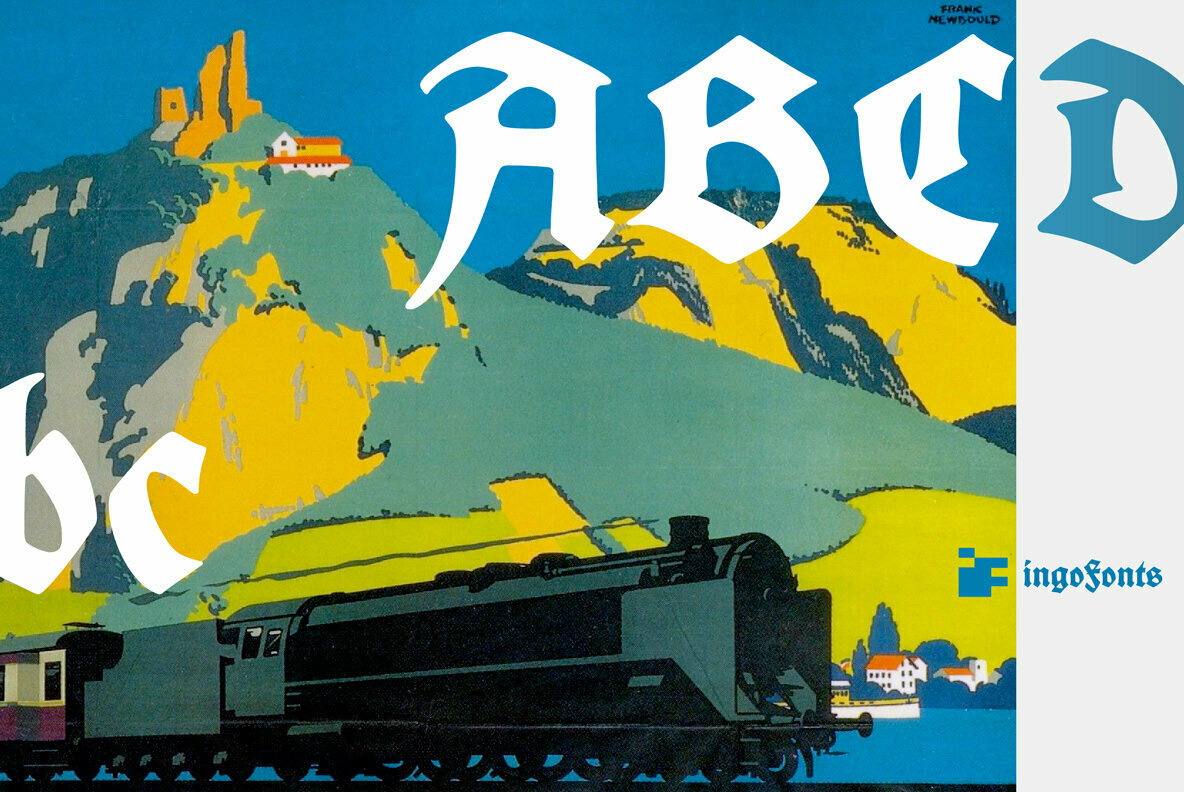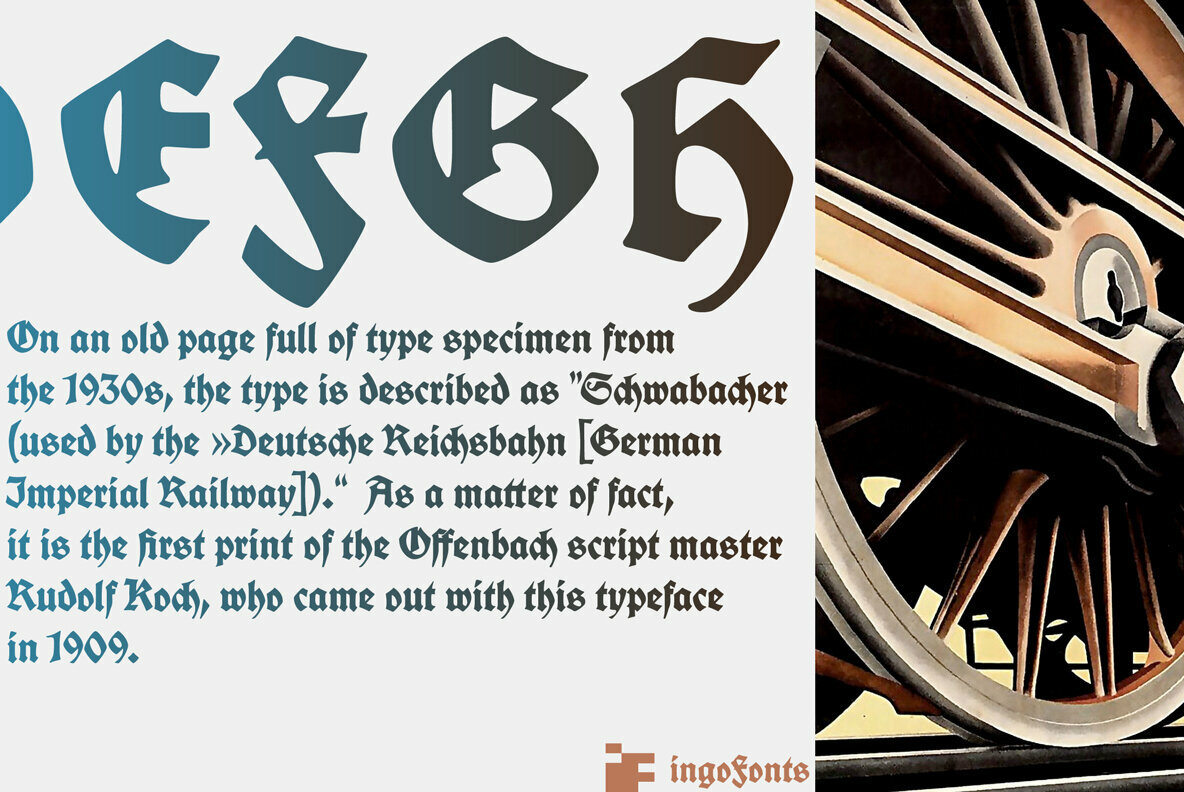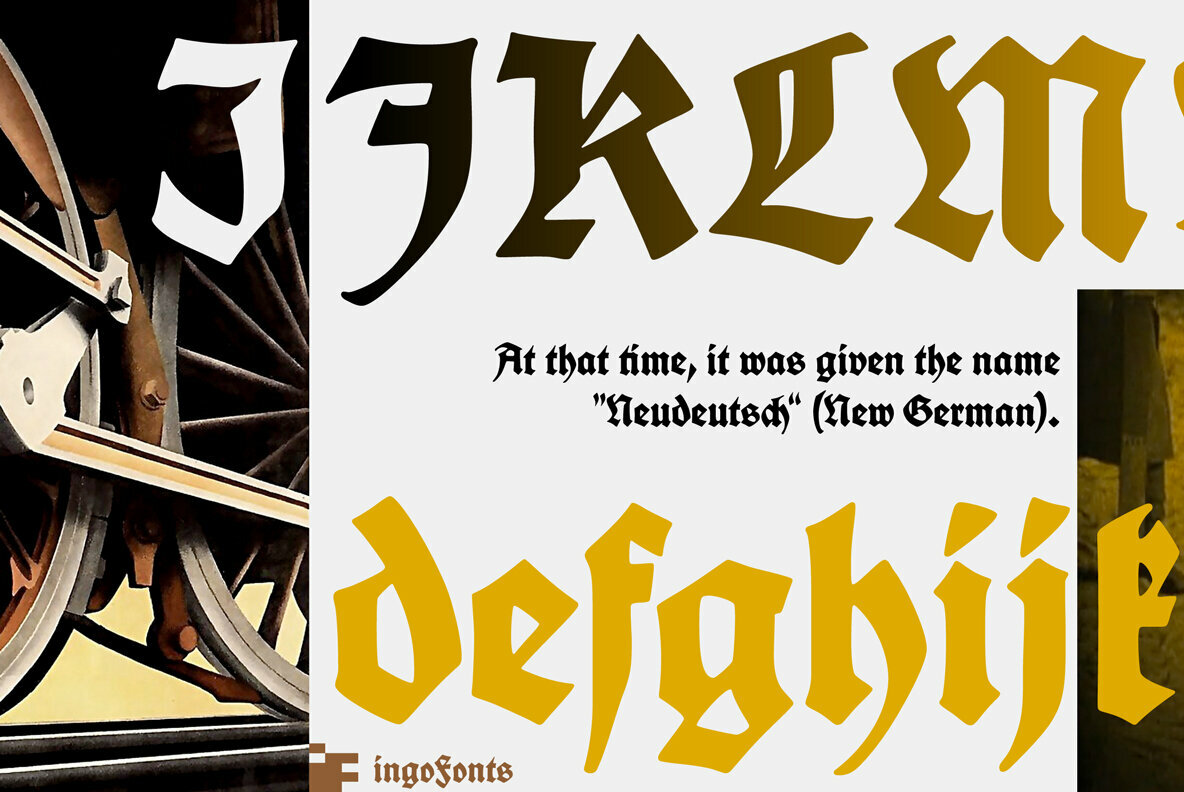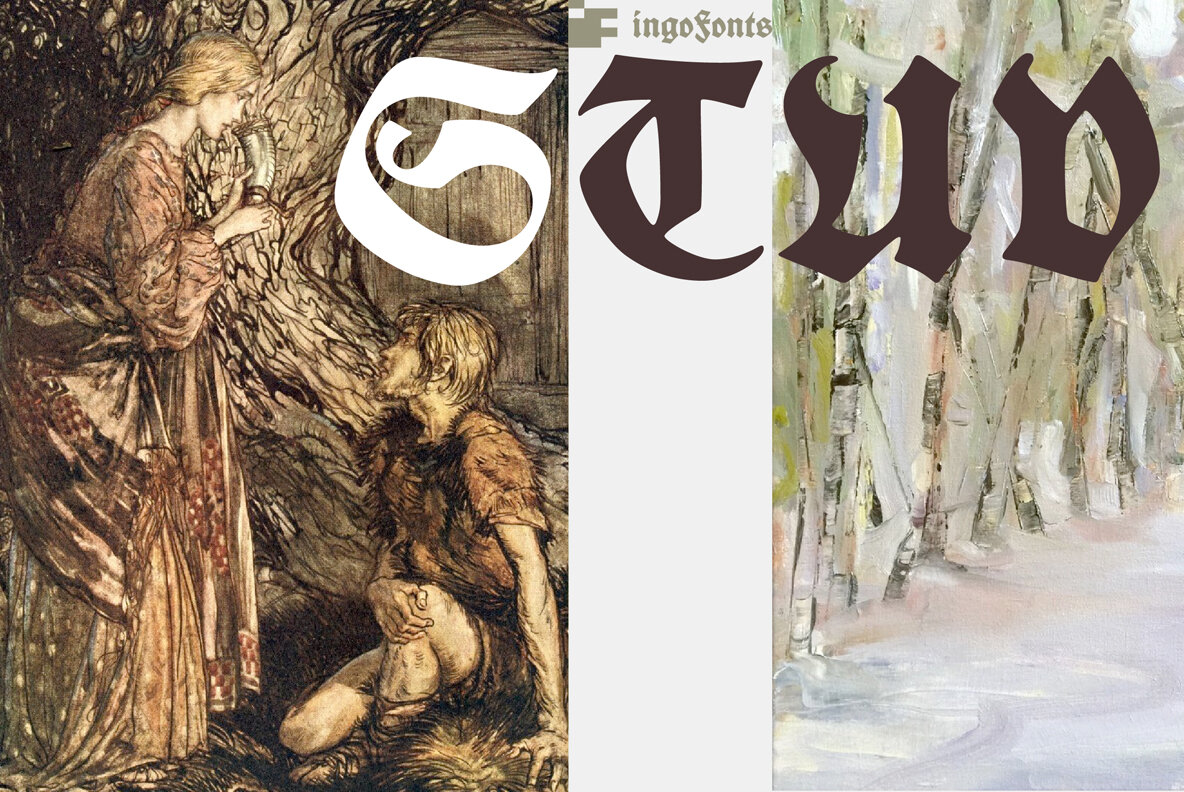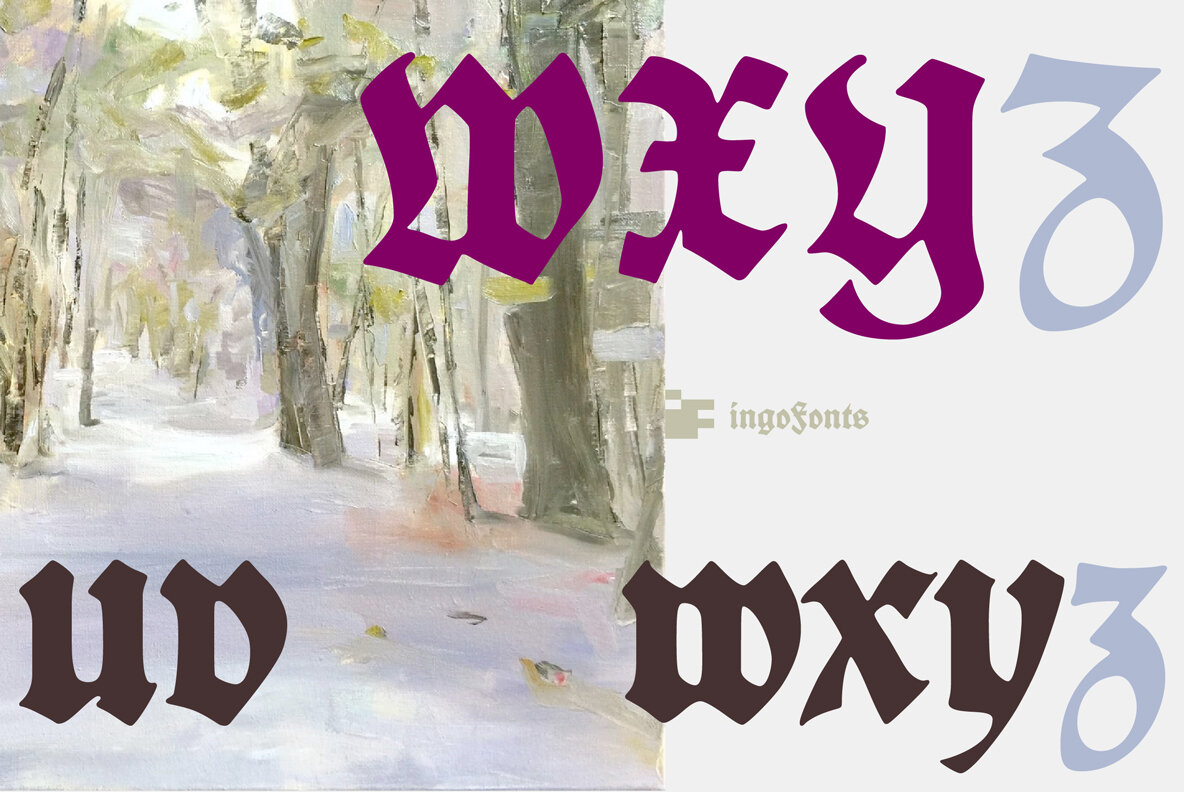
A heavy blackletter; Rudolf Koch’s first type from 1909.
On an old page full of type specimen from the 1930s, the type is described as ”Schwabacher (used by the Deutsche Reichsbahn [German Imperial Railway]).“ As a matter of fact, it is the first print of the Offenbach script master Rudolf Koch, who came out with this typeface in 1909.
At that time, it was given the name ”Neudeutsch“ (New German). Later, it became very popular under the name Koch-Schrift, and was at times the official typeface of the Deutsche Reichsbahn (German Imperial Railway).